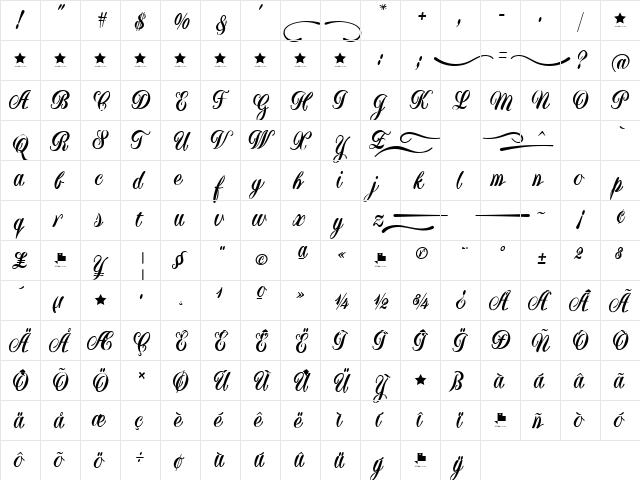
Yugoslavia FFP
| Foundry | deFharo |
| Designer | Fernando Haro |
Design Context for Yugoslavia Typeface
Yugoslavia is a composed and adaptable typeface that performs quietly and consistently across a wide range of design contexts.